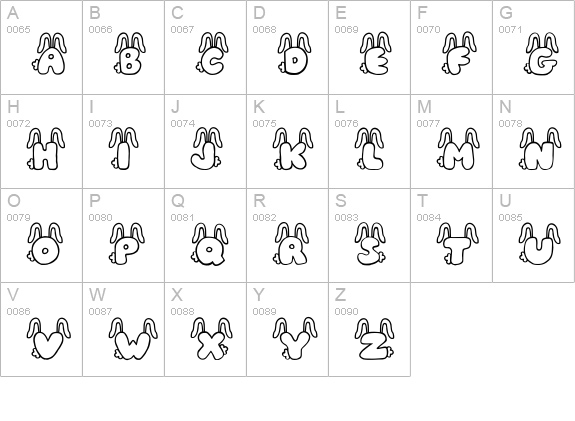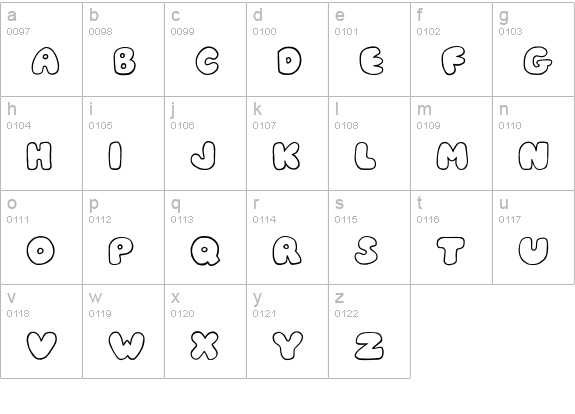
JI Bunny Caps Font Details
Introducing JI Bunny Caps font, a delightful and whimsical typeface that will bring a touch of playfulness to any design project. This charming font is perfect for creating eye-catching headlines, titles, and logos that demand attention. JI Bunny Caps font features a unique combination of rounded shapes and playful curves, giving it a friendly and approachable appearance. Its uppercase letters are adorned with adorable bunny ears, adding an extra dose of cuteness to your designs. Each character is carefully crafted with precision and attention to detail, ensuring a high-quality and visually pleasing result. What sets JI Bunny Caps font apart is not just its captivating design, but also its accessibility. This font is freely available to download at FontsMarket.com, allowing designers, creatives, and enthusiasts to easily access and utilize its charm in their projects. Whether you are designing a children's book cover, a birthday invitation, or simply want to add a touch of whimsy to your website, JI Bunny Caps font is the perfect choice. With its versatility and playful nature, JI Bunny Caps font can be used in a wide range of design applications. Its legibility and clean lines make it suitable for both print and digital projects, ensuring that your message is effectively communicated across various mediums. So, why wait? Download JI Bunny Caps font today from FontsMarket.com and let your creativity hop to new heights. Embrace the free-spirited nature of this font and infuse your designs with joy, warmth, and an undeniable sense of fun. With JI Bunny Caps font, your typography will be anything but ordinary.